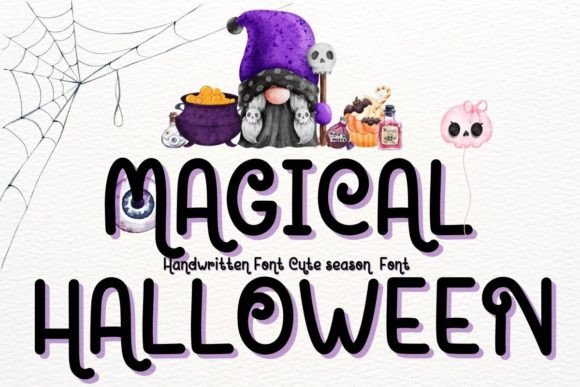
Unleash the Enchanting Spells of "Magical Halloween Font": A Bewitching Script for Your Mesmerizing Designs
In the realm of captivating fonts, "Magical Halloween Font" emerges as a haunting masterpiece, an eerie symphony spun in the heart of darkness. This script font is not just a collection of letters; it's a portal to a mystical world where design sorcery takes shape.
Crafted by the visionary hands of charmingbear59.design, "Magical Halloween Font" conjures a world of eerie elegance and captivating allure. It's the perfect font for those who dare to venture beyond the ordinary, to embrace the mysterious and the macabre.
Imagine your designs transformed into spellbinding incantations, each letter a chilling whisper dancing on the page. Invitations, posters, flyers, and social media posts will transcend into mesmerizing canvases of supernatural charm. The fluid strokes of "Magical Halloween Font" will cast a spell on your audience, luring them into a realm of dark enchantment.
With its ghostly allure and spine-tingling beauty, "Magical Halloween Font" will make your designs whisper tales of haunting wonder. It's the perfect addition to your font collection, waiting to bewitch and beguile your audience.
So, dear seeker of captivating typography, heed our call and embrace the enigmatic charm of "Magical Halloween Font." Let your creations dance under the moonlight, captivating hearts and stirring souls. Dive into the realm of supernatural beauty and unleash the haunting magic within.